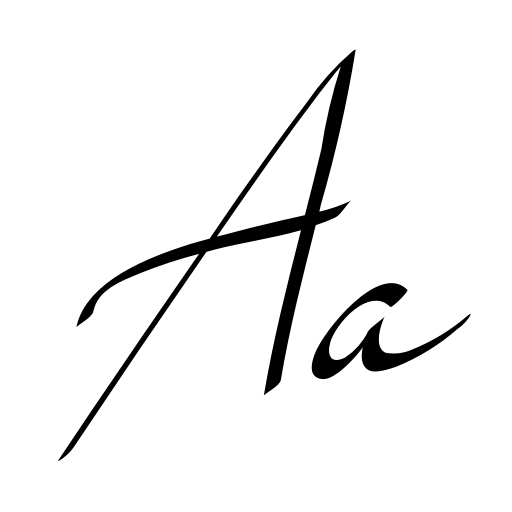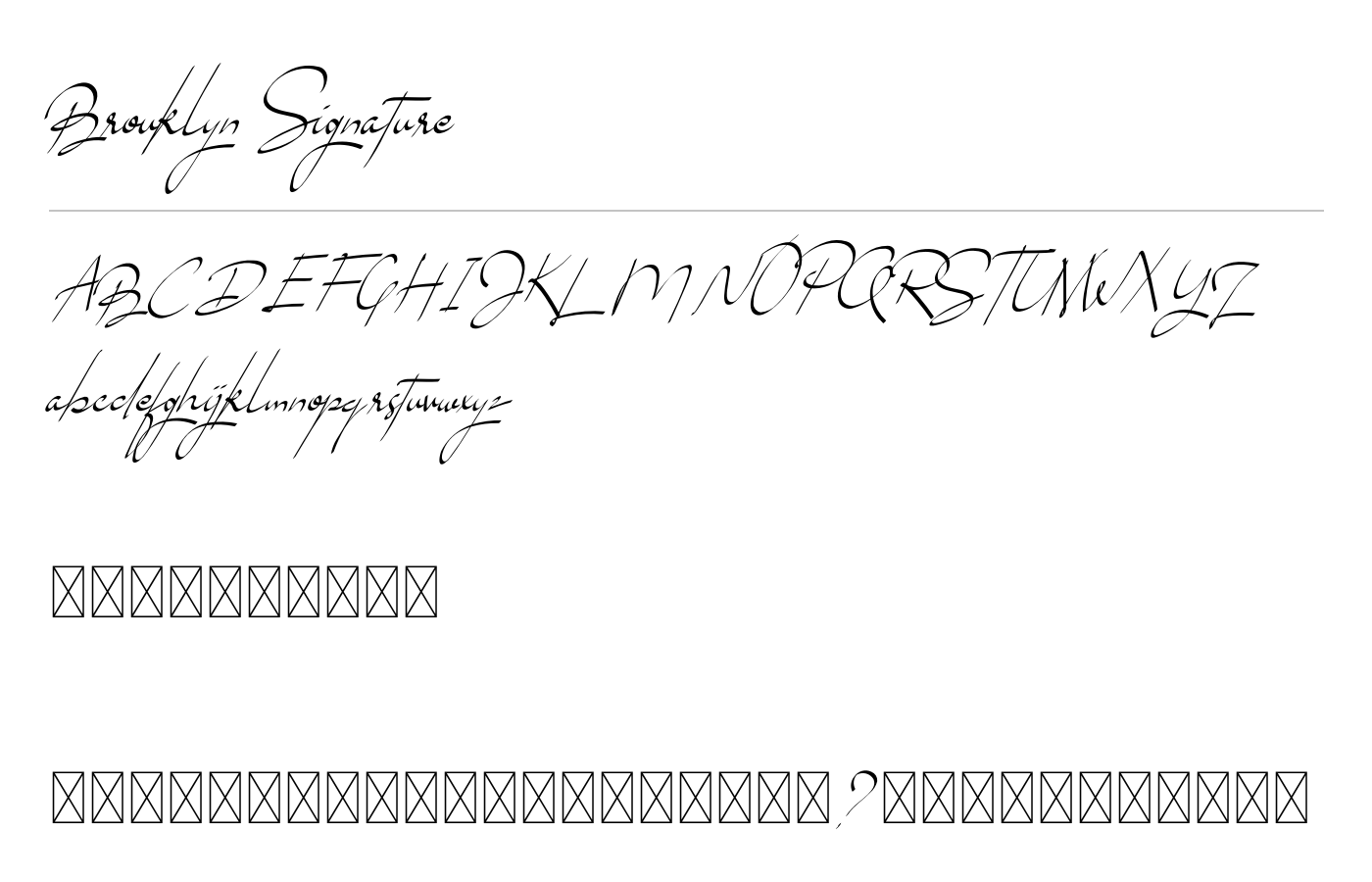
Brouklyn Signature is a delicate and elegant script font that mimics the fluidity of natural handwriting with fine, flowing strokes and a high contrast between thick and thin lines. Its slender, graceful letterforms create a sophisticated and personal feel, making it ideal for luxury branding, wedding invitations, and stylish logos where a refined, signature-style look is desired. This font shines best in large sizes for headlines and branding, where its intricate details can be fully appreciated.
Brouklyn Signature Font
About Brouklyn Signature Font